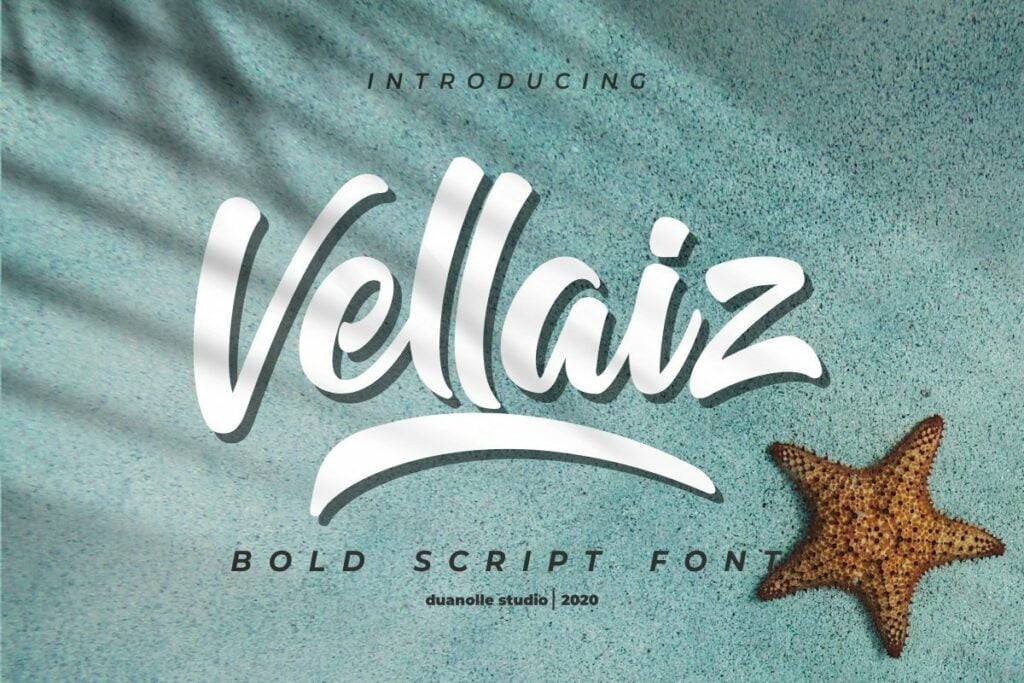
Vellaiz Font
Introducing the new Vellaiz Font is a script font with a bold handwritten style and can be used for all your project needs. Several features ligatures that you can access to enhance the appearance of your project.
This font is perfect for your branding and other cool projects, such as: logos, stationery, social media posts, advertisements, product packaging, wedding designs, product design, labels, photography, and more!
Vellaiz Bold Script Font